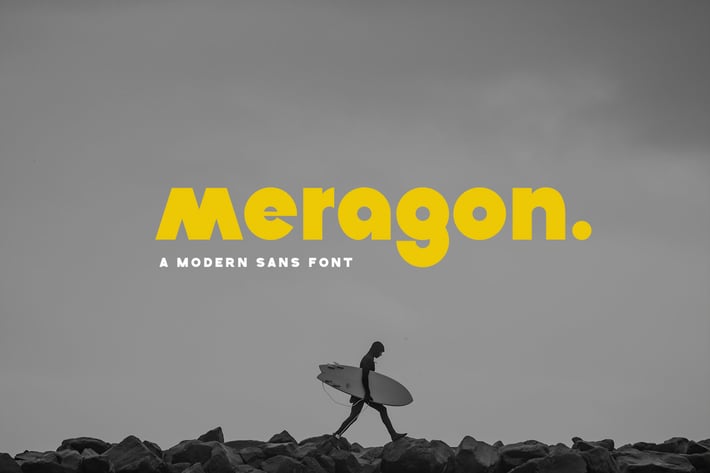
Meragon Bold Sans Font
Meragon is bold sans font inspire by aesthetic industrial brand. Meragon is a perfectly choice for any creative endeavor, lifestyle design such as logotype, advertisements, watermark on photography, stationery, branding project, display and magazine, invitation, corporate brand, product design, label, business project and many other project with modern or industrial touch.